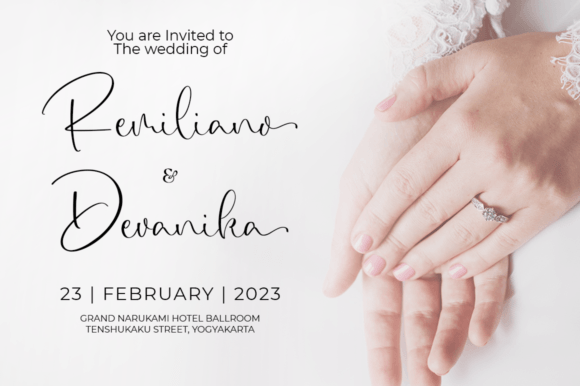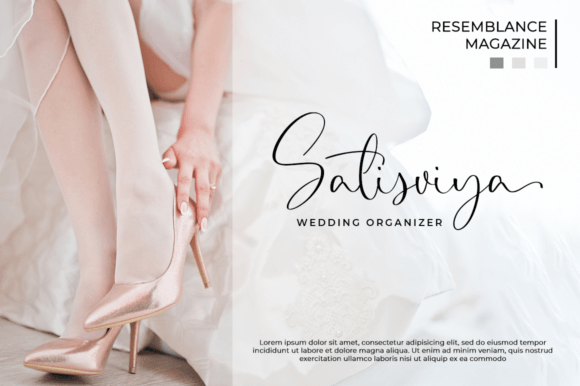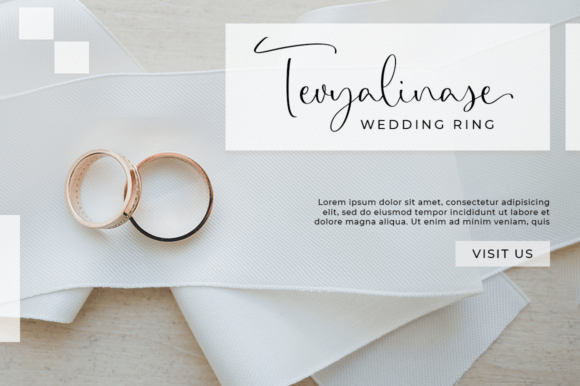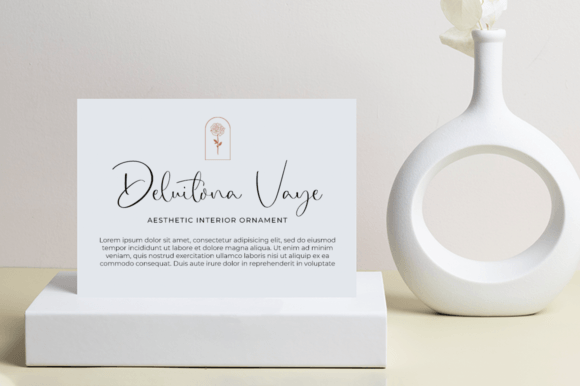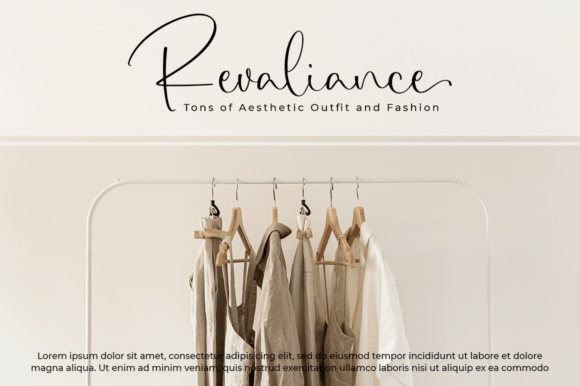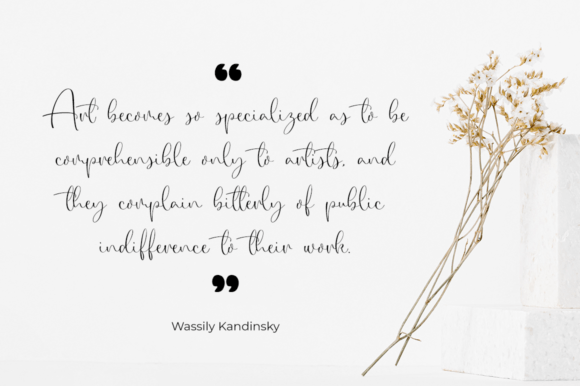
Introducing Amberosia Font: Elevate Your Designs with Elegance
Are you a designer or crafter looking for a font that adds a touch of sophistication and uniqueness to your projects? Look no further than Amberosia Font, an elegant handwritten font that is sure to make your designs stand out. In this article, we’ll dive into the features and benefits of Amberosia Font, and explore how it can elevate your designs to the next level.
What is Amberosia Font?
Amberosia Font is a beautiful, handwritten font that exudes elegance and refinement. Its unique and distinct style makes it perfect for a wide range of design projects, from wedding invitations and thank you cards to quotes, greeting cards, logos, and business cards. Whether you’re a professional designer or a crafty DIY enthusiast, Amberosia Font is sure to become a favorite in your collection.
Key Features of Amberosia Font
- Elegant Handwritten Style: Amberosia Font boasts a gorgeous, handwritten style that adds a touch of sophistication to any design.
- PUA Encoded: This font is PUA (Private Use Area) encoded, which means you can access all of the glyphs and swashes with ease. This makes it simple to customize your designs and add unique flourishes.
- Versatile: Amberosia Font is perfect for a wide range of design projects, from wedding invitations and greeting cards to logos and business cards.
Why Choose Amberosia Font?
So why choose Amberosia Font for your design projects? Here are just a few reasons:
- Unique and Distinct: Amberosia Font has a one-of-a-kind style that will set your designs apart from the crowd.
- Elegant and Refined: This font exudes elegance and sophistication, making it perfect for designs that require a touch of luxury.
- Easy to Use: With PUA encoding, accessing glyphs and swashes is a breeze, making it simple to customize your designs.
How to Use Amberosia Font in Your Designs
Amberosia Font is easy to use in a variety of design projects. Here are a few ideas to get you started:
- Wedding Invitations: Add a touch of elegance to your wedding invitations with Amberosia Font.
- Greeting Cards: Create beautiful, one-of-a-kind greeting cards for special occasions.
- Logos and Branding: Use Amberosia Font to create a unique and memorable logo for your business or brand.
- Quotes and Inspirational Graphics: Add a touch of sophistication to your quotes and inspirational graphics.
Tips and Tricks for Getting the Most Out of Amberosia Font
Here are a few tips and tricks for getting the most out of Amberosia Font:
- Experiment with Different Sizes and Colors: Play around with different sizes and colors to find the perfect combination for your design.
- Use Swashes and Glyphs: Take advantage of the PUA encoding to add unique swashes and glyphs to your designs.
- Pair with Other Fonts: Experiment with pairing Amberosia Font with other fonts to create a unique and interesting look.
Amberosia Font is a beautiful, elegant handwritten font that is sure to elevate your designs to the next level. With its unique and distinct style, PUA encoding, and versatility, it’s the perfect choice for designers and crafters looking to add a touch of sophistication to their projects. Whether you’re creating wedding invitations, greeting cards, logos, or quotes, Amberosia Font is sure to become a favorite in your collection.